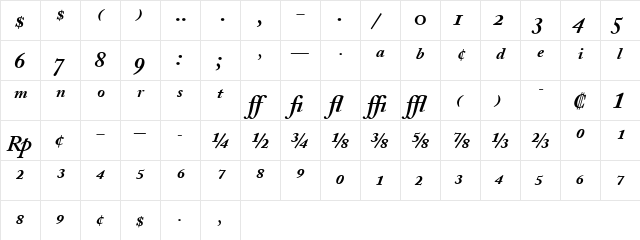
ACaslonExp Bold Italic
Design Context for ACaslonExp Bold Typeface
ACaslonExp Bold is a composed and adaptable typeface that performs quietly and consistently across a wide range of design contexts. The slanted form adds forward momentum and visual energy. The heavy weight commands attention and anchors typographic hierarchies.
Pro Tip: Use ACaslonExp Bold for emphasis, pull quotes, and subheadings where its slanted energy can add rhythm to the layout.